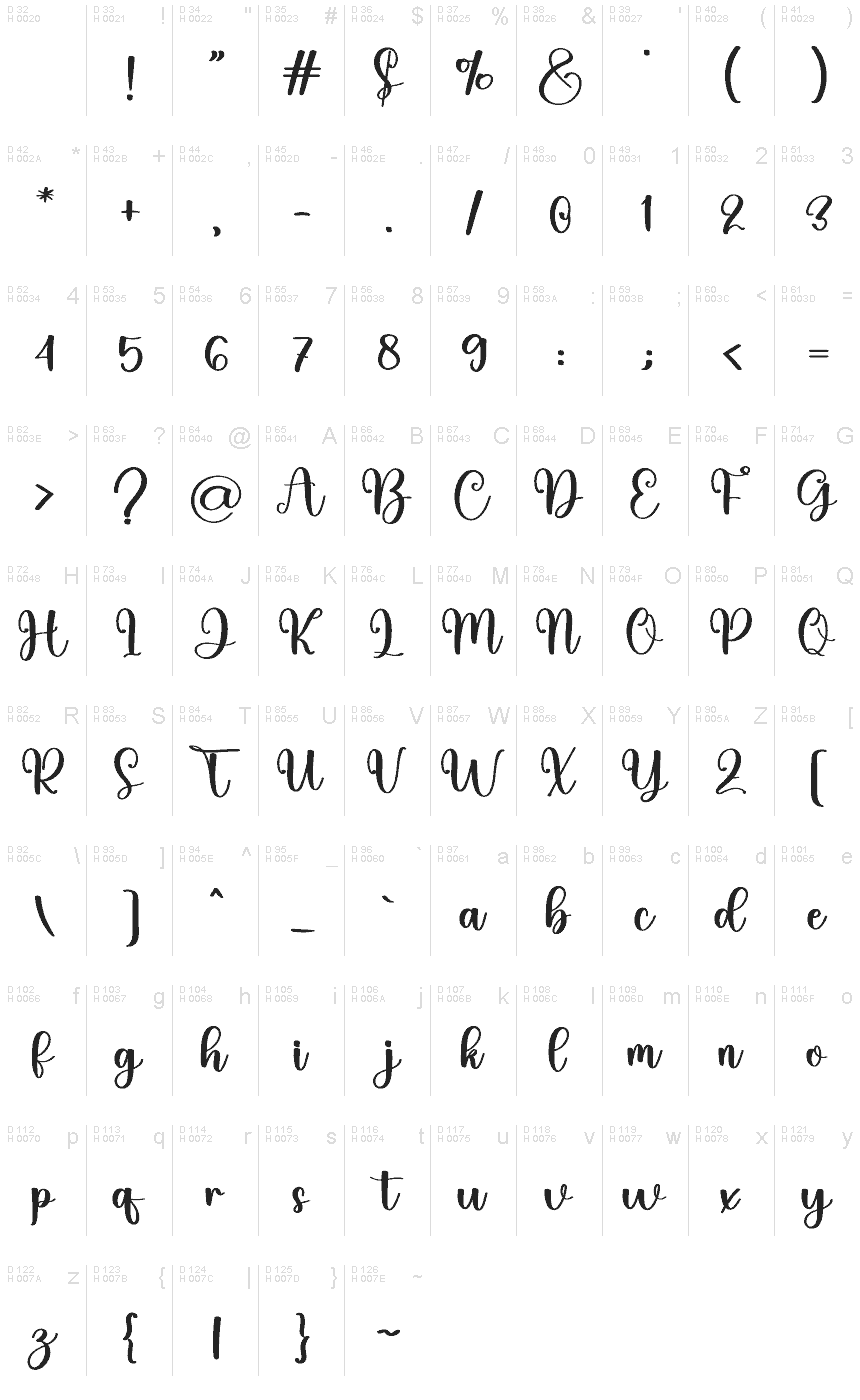
Elastic
Elastic font by Inermedia Studio presents itself as an elegant and expressive calligraphy font inspired by the beauty of natural handwriting. With fluid strokes and thin lines, it achieves a flowing modern script effect with decorative flair. A touch of friendliness is also added to this design which favors balance for both stylish and readable presentations.
Available for free, Elastic has plenty an option when it comes to uses: notebooks, printed cards, logo design, greeting cards, invites like weddings or baby showers, quotes on posters or social media posts; all can benefit from the distinct character this font provides.